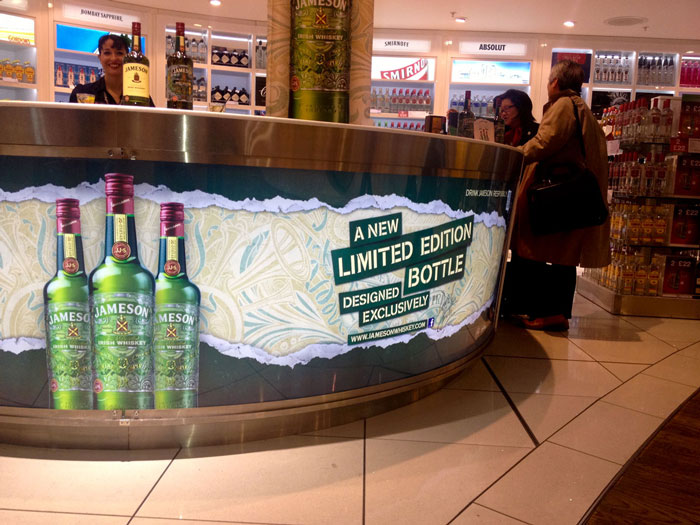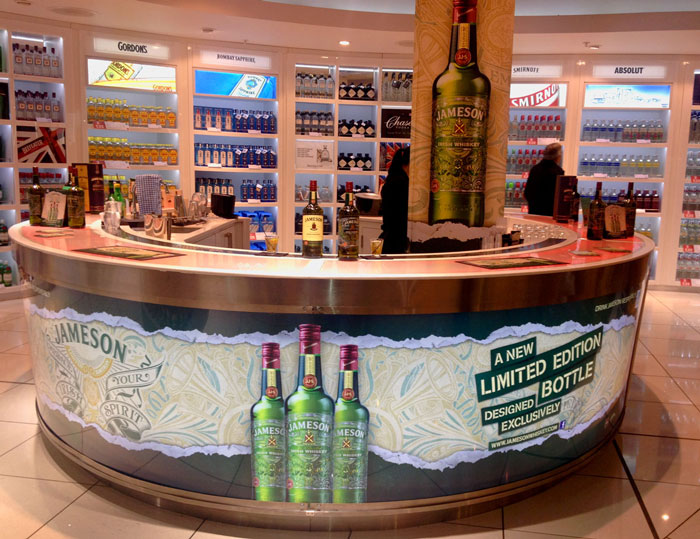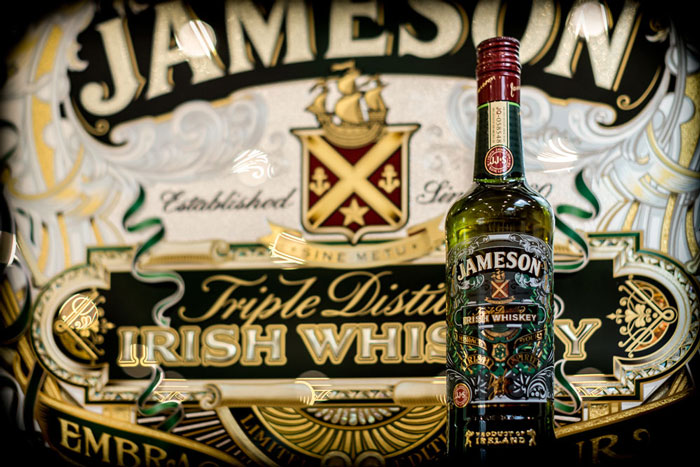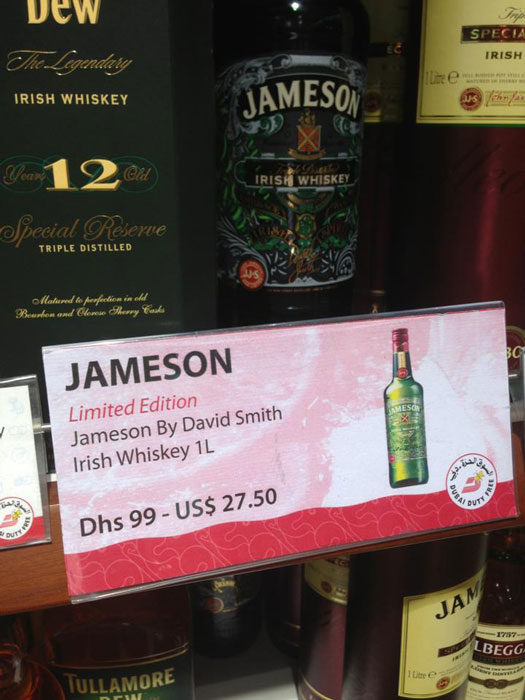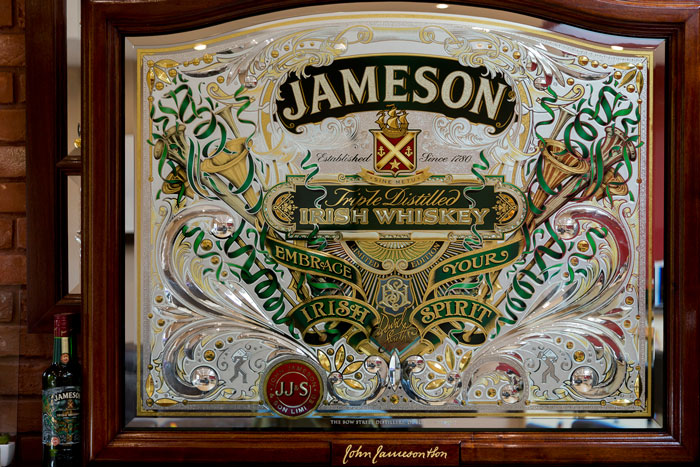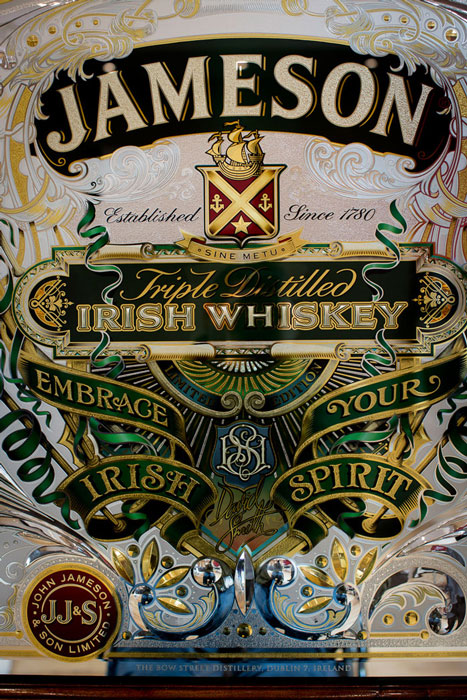
Jameson Whiskey Limited Edition Bottle and glass
We had a fun weekend over at the St. Patricks day celebrations in Dublin on the 17th March. Jameson went all out to look after all 10 of us that made the trip. They treated us like royalty! everything paid for including flights. The Irish sure do know how to party!
Attached are some images of the glass sign I made for them and the bottle which has gone worldwide, but for some unknown reason did not make the States.
Not sure why, but hope to find out at some point. The PR has been amazing with displays in all airports and even printed on the flight tickets of most British Airways flights ,they also gave me my own bar front in London ,Heathrow! lol Some shots of my family and one shot of my nephew and daughter Hannah in New Zealand with the bottle they found locally in a supermarket , and the album cover that was made for John Mayer.
Family and friends shot.
Fun to see you & your family enjoying a bit of time off & see the final product up close. I've enjoyed following the posts youve made with the progress & success of the Jameson project.
I especially liked the ribbons on the label that read, "Embrace Your Irish Spirit". Very smooth.
I am still wondering how the US was slighted on the opportunity to purchase the special edition.
Are they still holding a grudge? ;)
Thanks for posting the photos of what must have been a fantastic trip and an outstanding piece of work.
Can I take this opportunity on behalf of all who love our craft and visit this site to congratulate you for the amazing job you have done in raising the profile of our passion to the wider world. You have shown in no uncertain terms to the graphic, art and marketing industries that the traditional sign writer is not a vesitage of a bygone era, but is more valid now than we have ever been. The signwriter offers an alternative vision; A reaction against the generic and digital and a concession to the vibrant, passionate and human.
Through your efforts you have raised awareness of our trade for all of us and you have shown to many the empitomy of a true craftsman.
Now before you think I've gone soft in the fitch I'll say well done buddy and see you soon.
What I like is the two signatures - one on the frame seems to say "John Jameson &Son" and the one in the middle of the piece says "David Smith".
Thankyou very much for such nice comments you guys. Ashley it's a pleasure to share this skill with you and others ,thankyou for saying that. I've learnt so much from many here and especially back in the Fine Gold Days which we all miss very much. Let's keep on sharing this artform with the world , i think it will slowly start to make a difference and possibly bring it all back around. The great thing with these projects is the exposure they bring to our craft, John Mayers album cover and the film we made has hit over 1.9 million plays in 4 weeks , i'm recieving emails from people constantly about this craft and the same also with the Jameson bottles. Thanks to both these clients the exposure has been huge on what we all do. I hope alot of you may benefit from some of this as it will all help to keep it alive. Thanks to the Letterheads!
I will never stop saying that Dave Smith deserves to be Knighted for all his most extra ordinary craftsmanship.
Bill, You are the one that needs the Knighthood! thanks very much Bill, much appreciate it buddy. Lots of people here I look upto for ideas and advise you being one of them mate.
Actually that would make a great sign in chipped gilded glass.